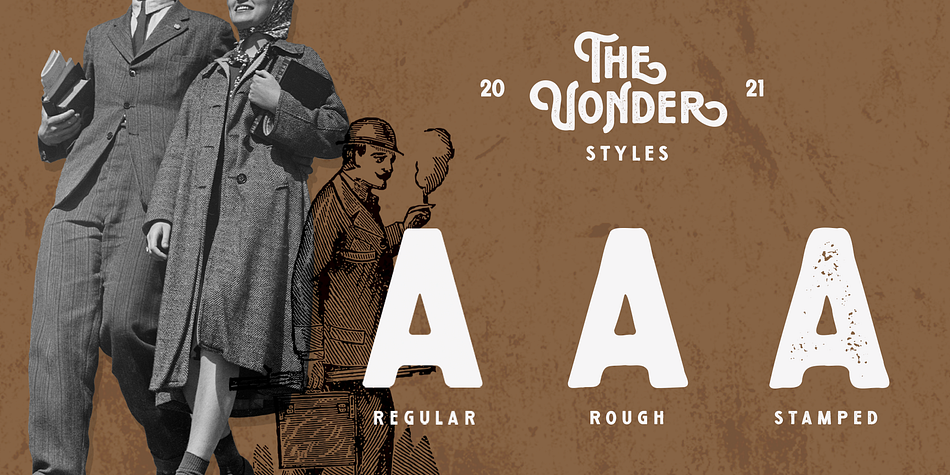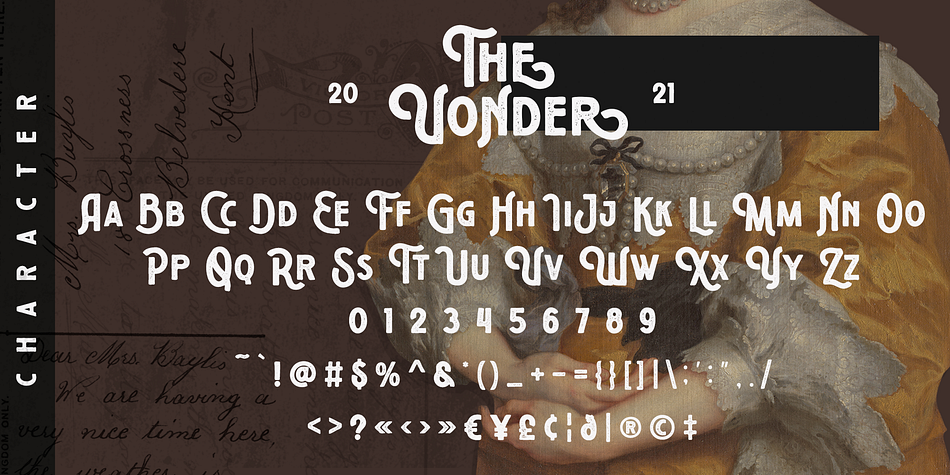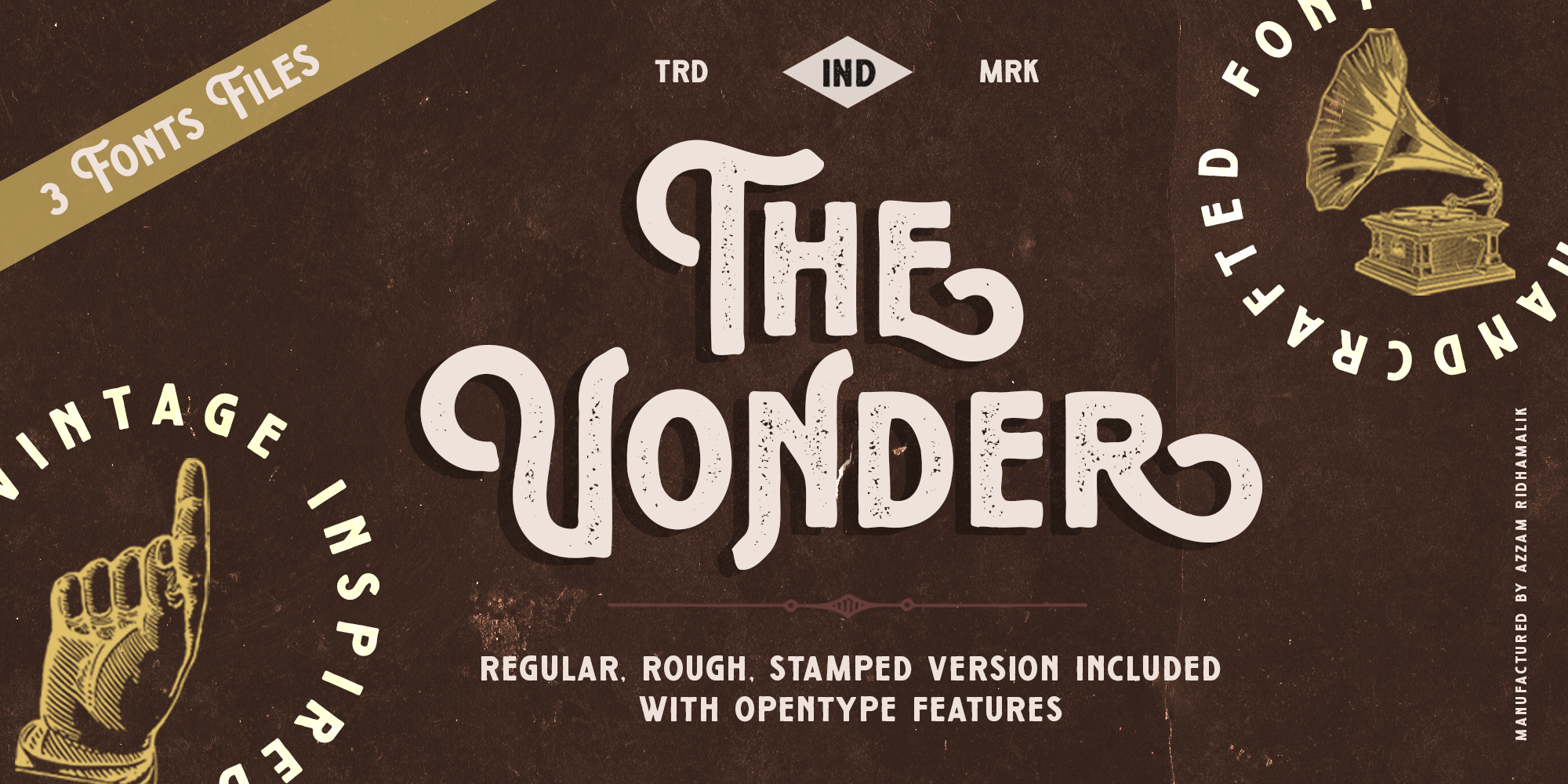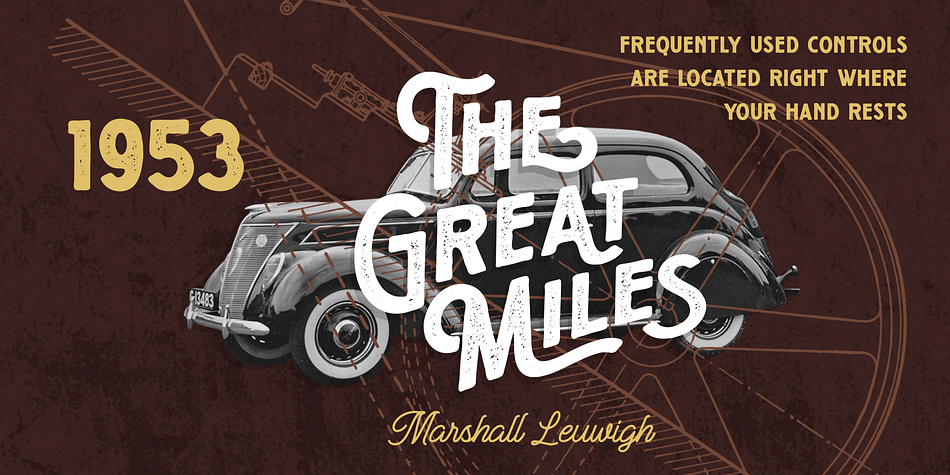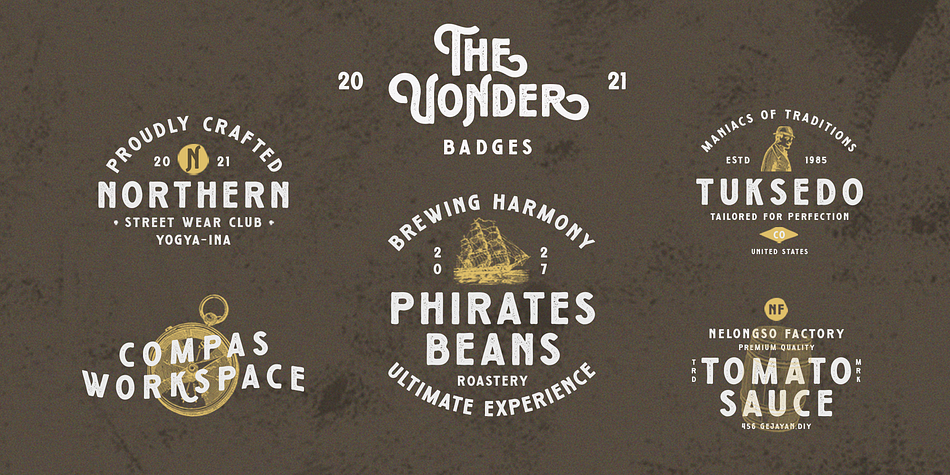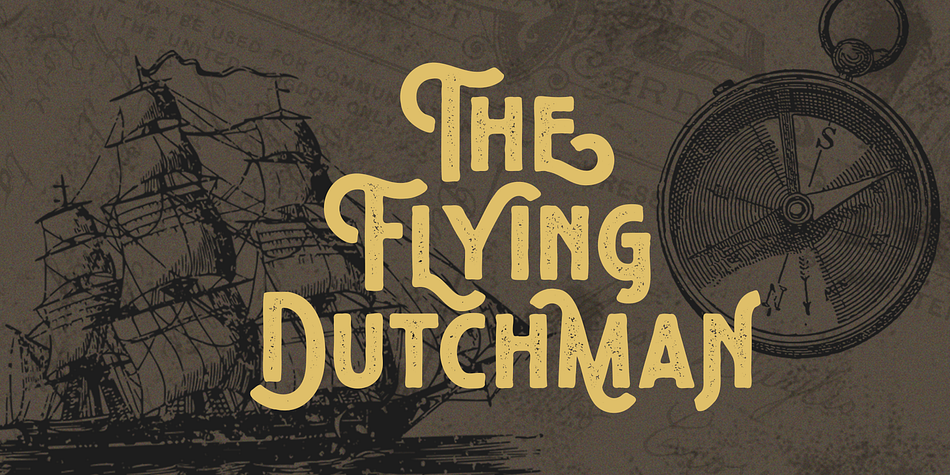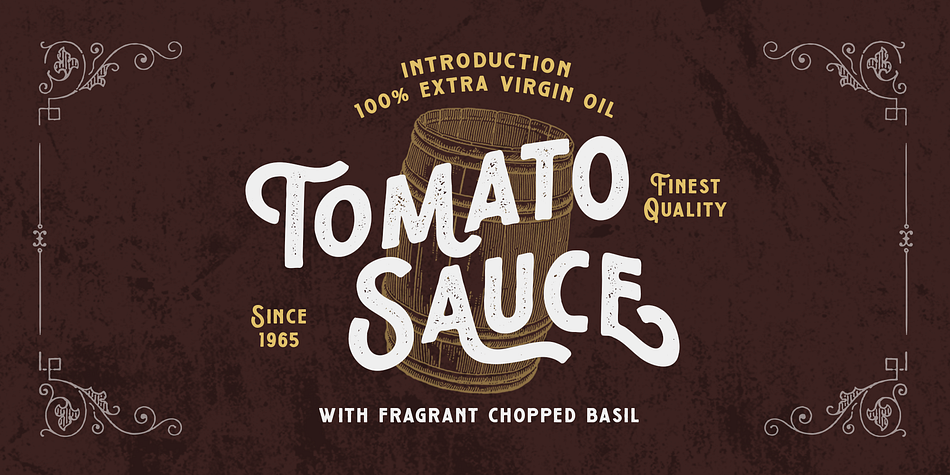
Vonder
Vonder is a brush display font family. This typeface has three styles and was published by Zarma Type.
Vonder Font is a bold display typeface with a cool, rough texture that adds character and strength to any design. This font is a valuable addition to any font library, as its striking style has the power to elevate a wide range of projects, regardless of the topic or theme.
Vonder is an all-caps font featuring numerous alternative characters that enhance its versatility, especially when aiming for a vintage look. The font includes uppercase letters, numbers, punctuation, multilingual support, ligatures, and stylistic alternates, ensuring it adapts well to various design needs on both PC and Mac.